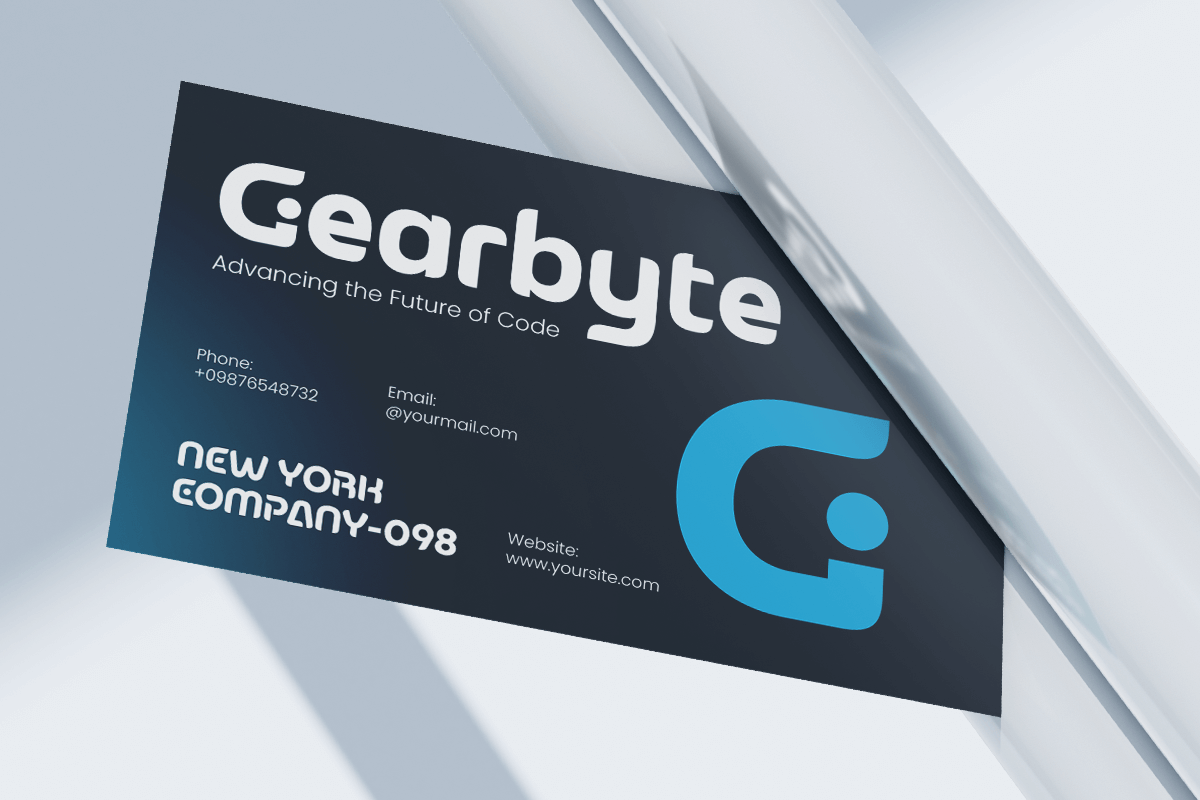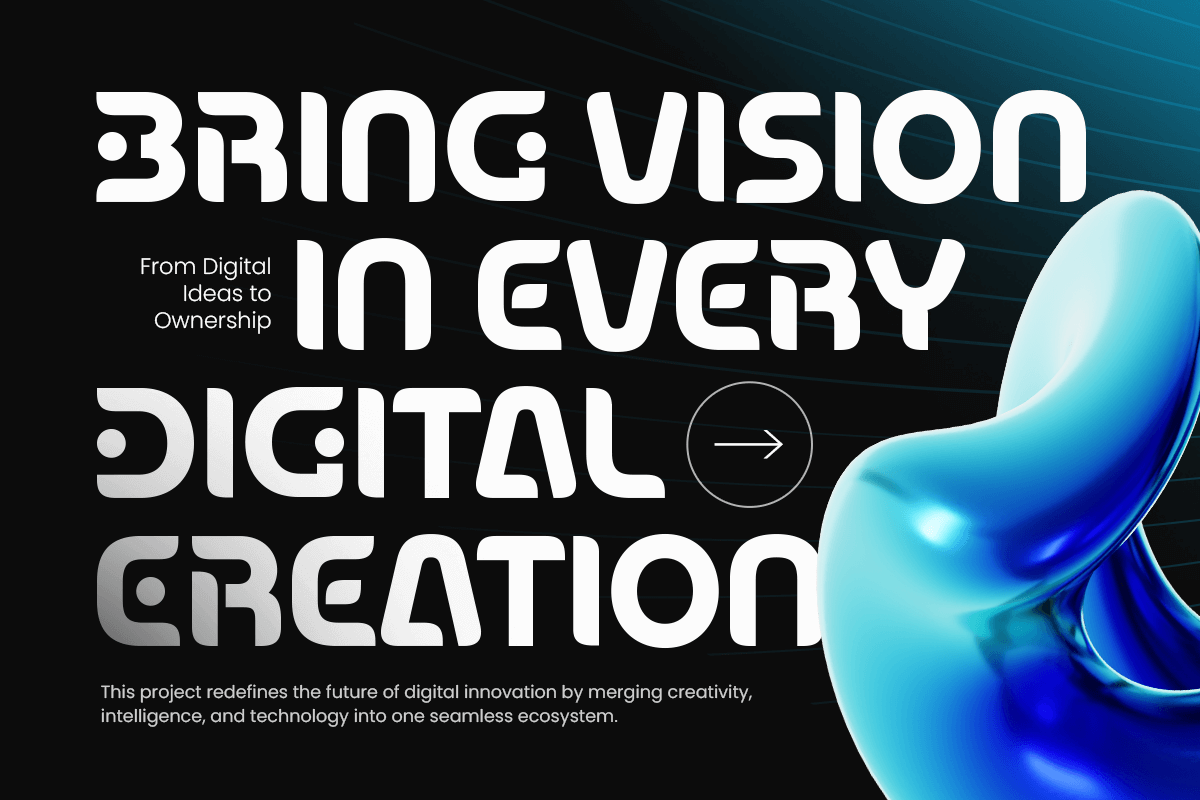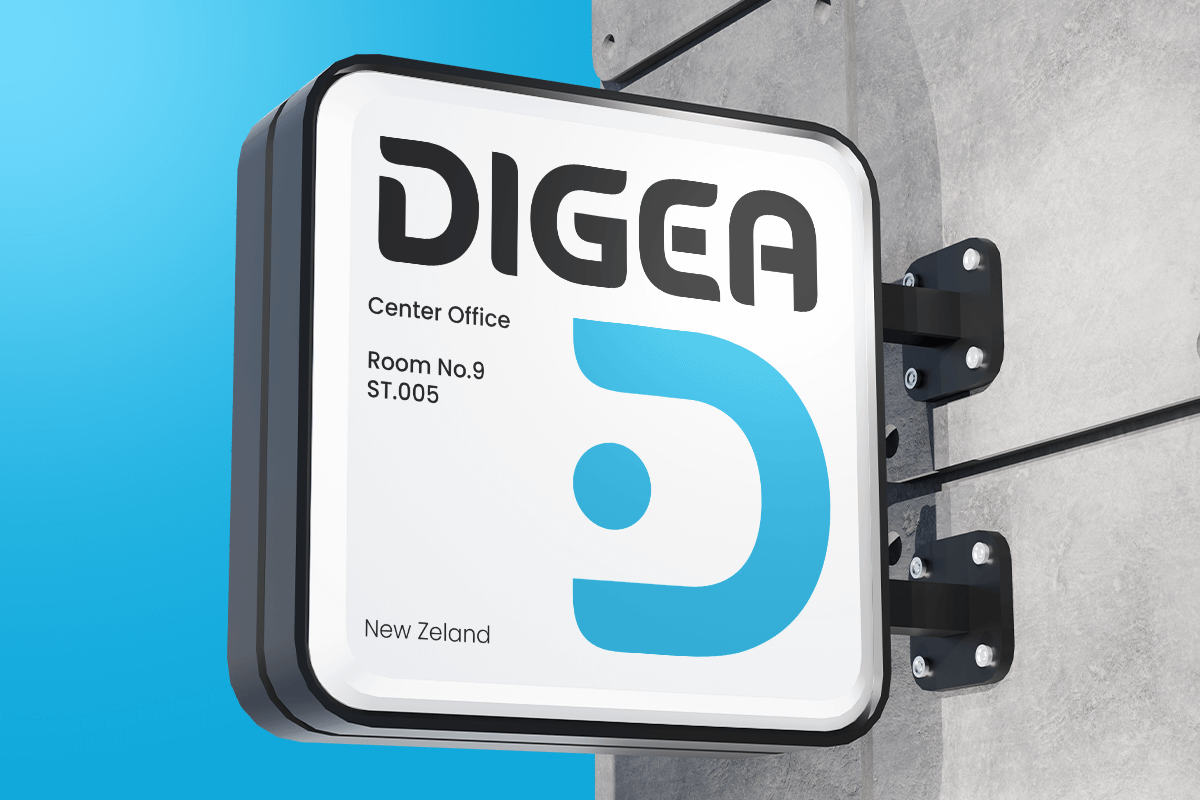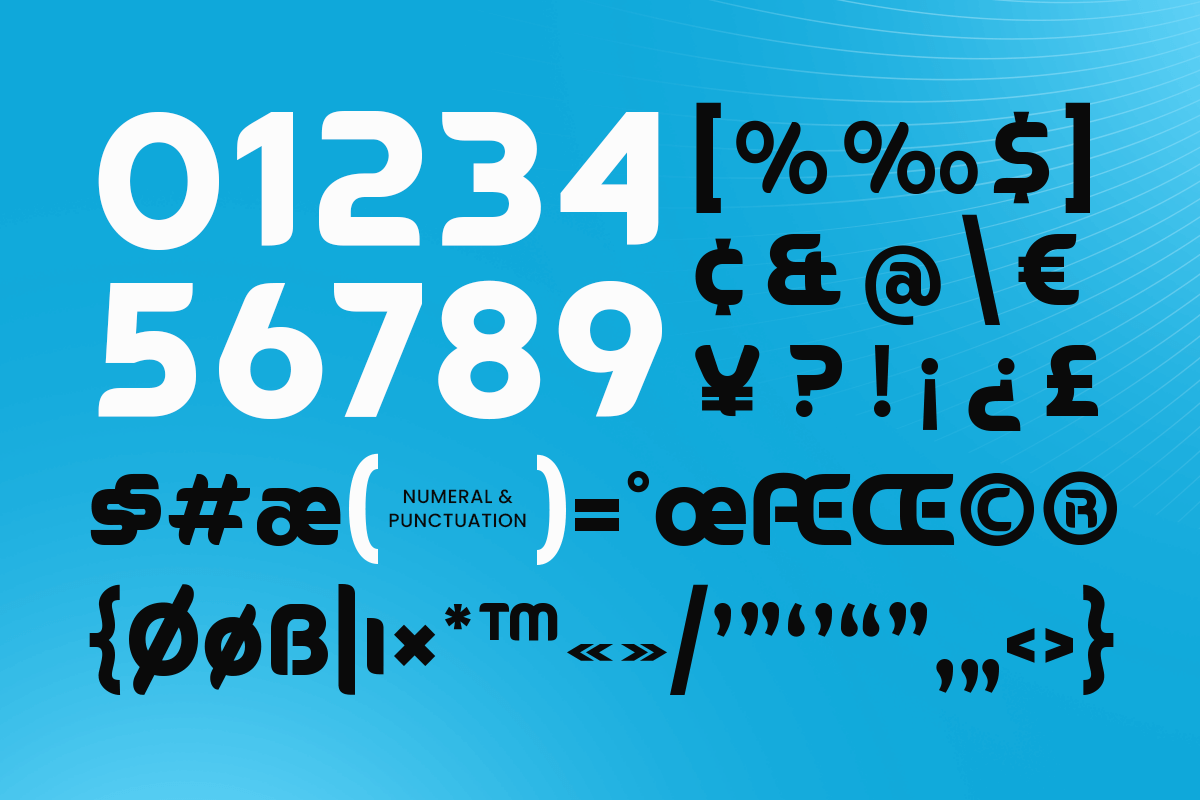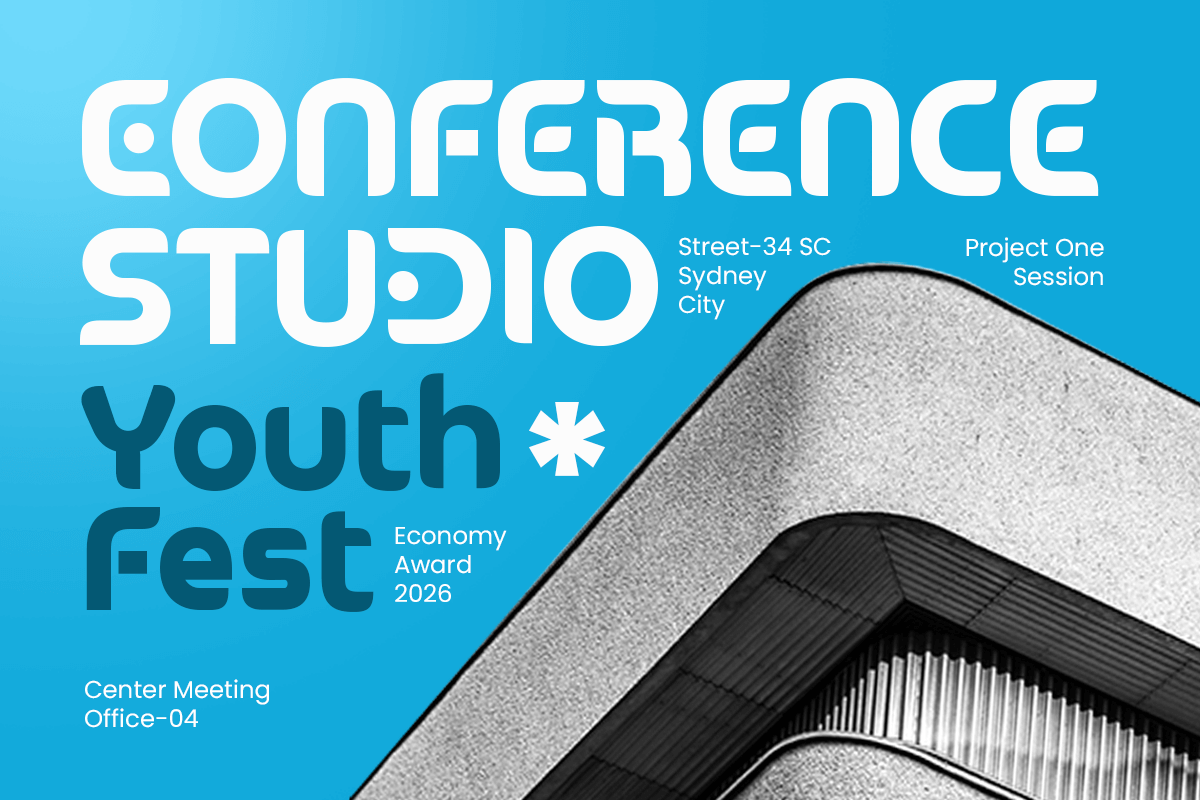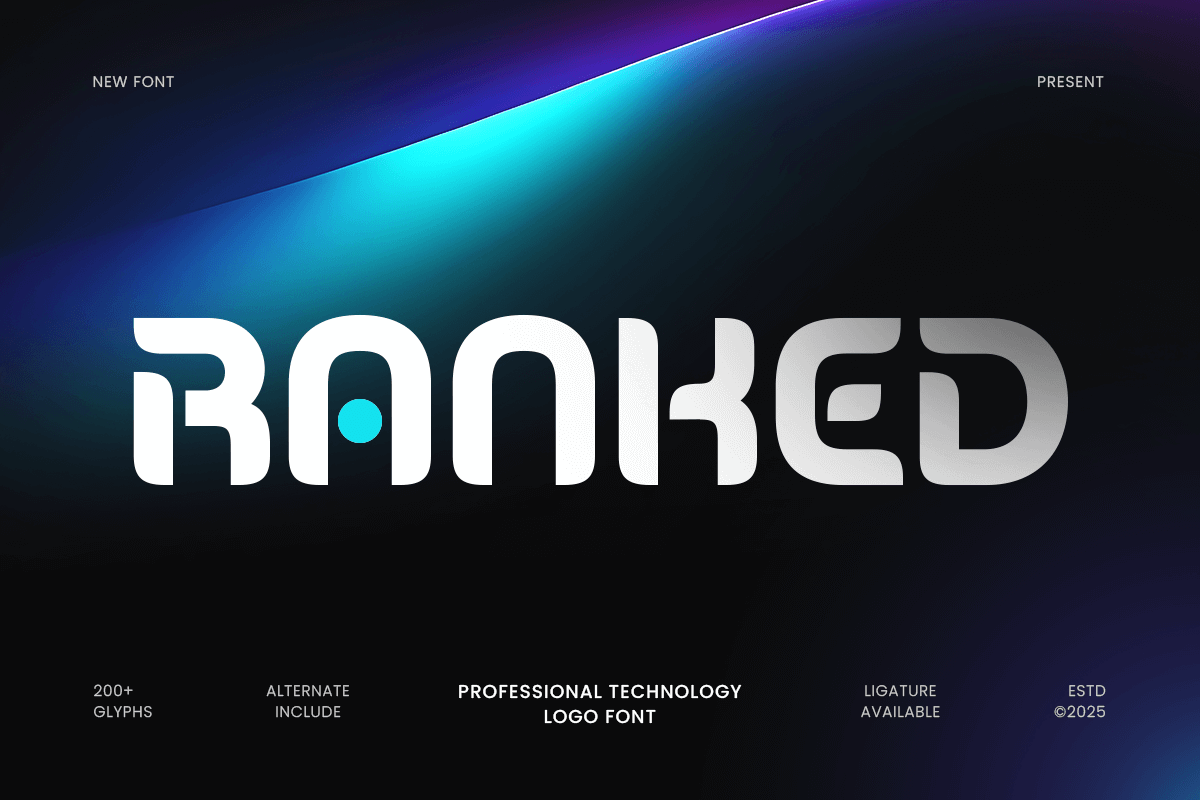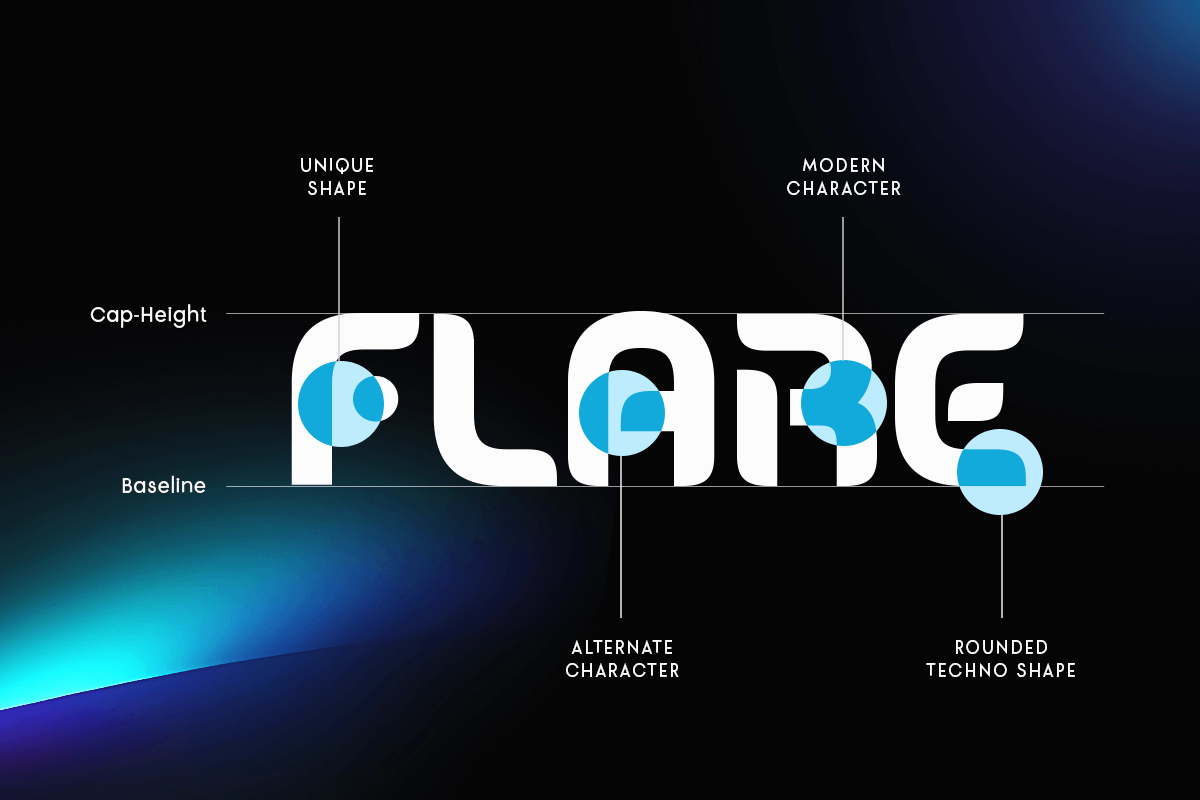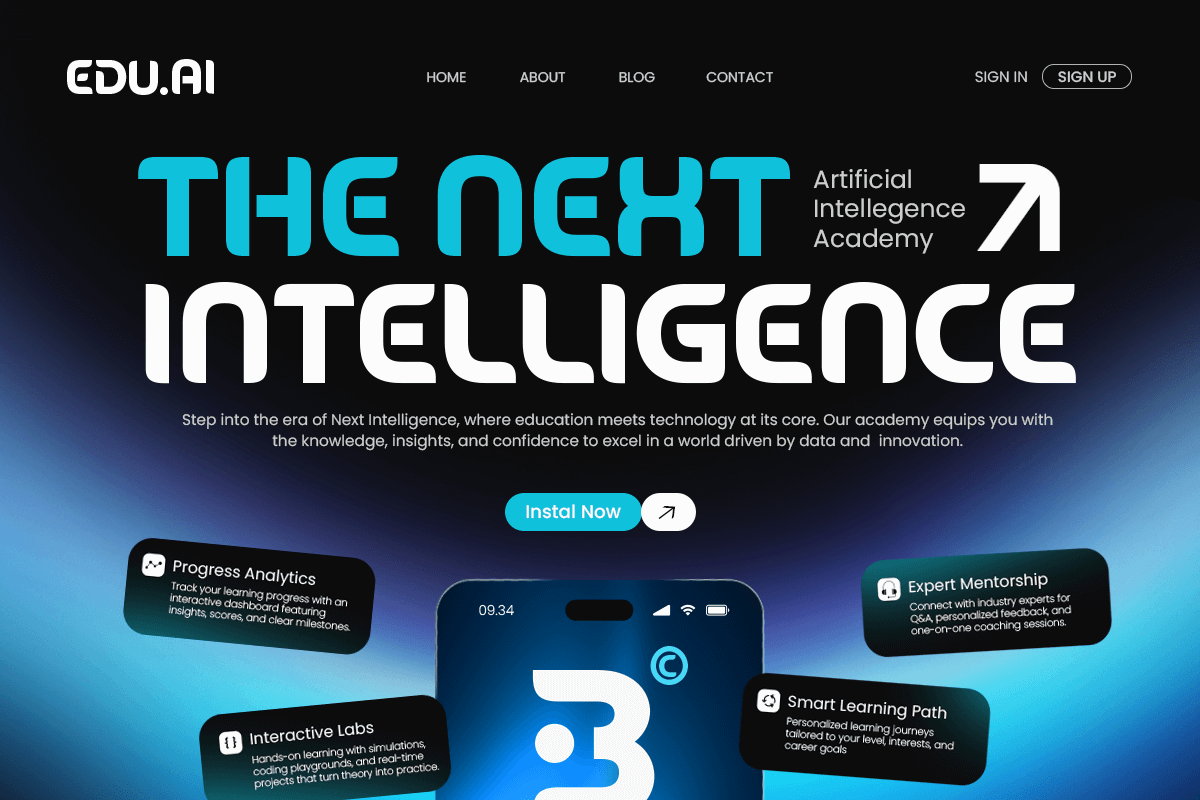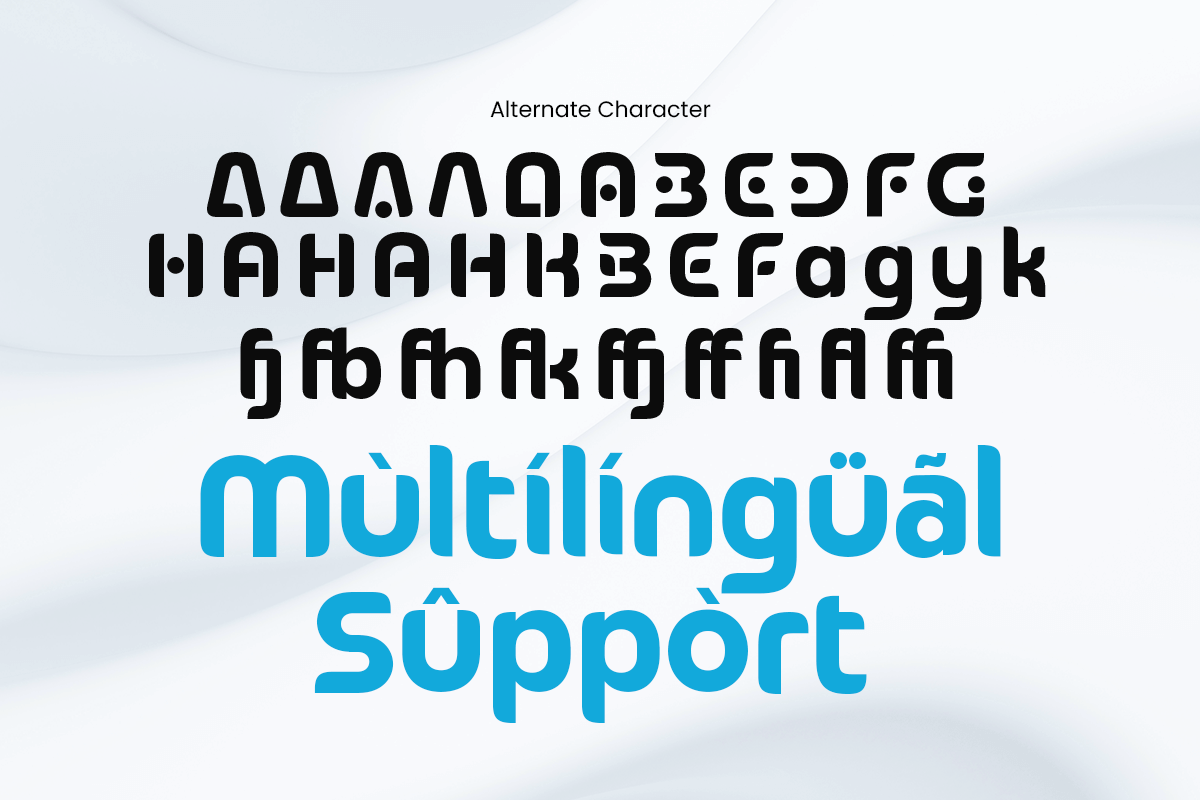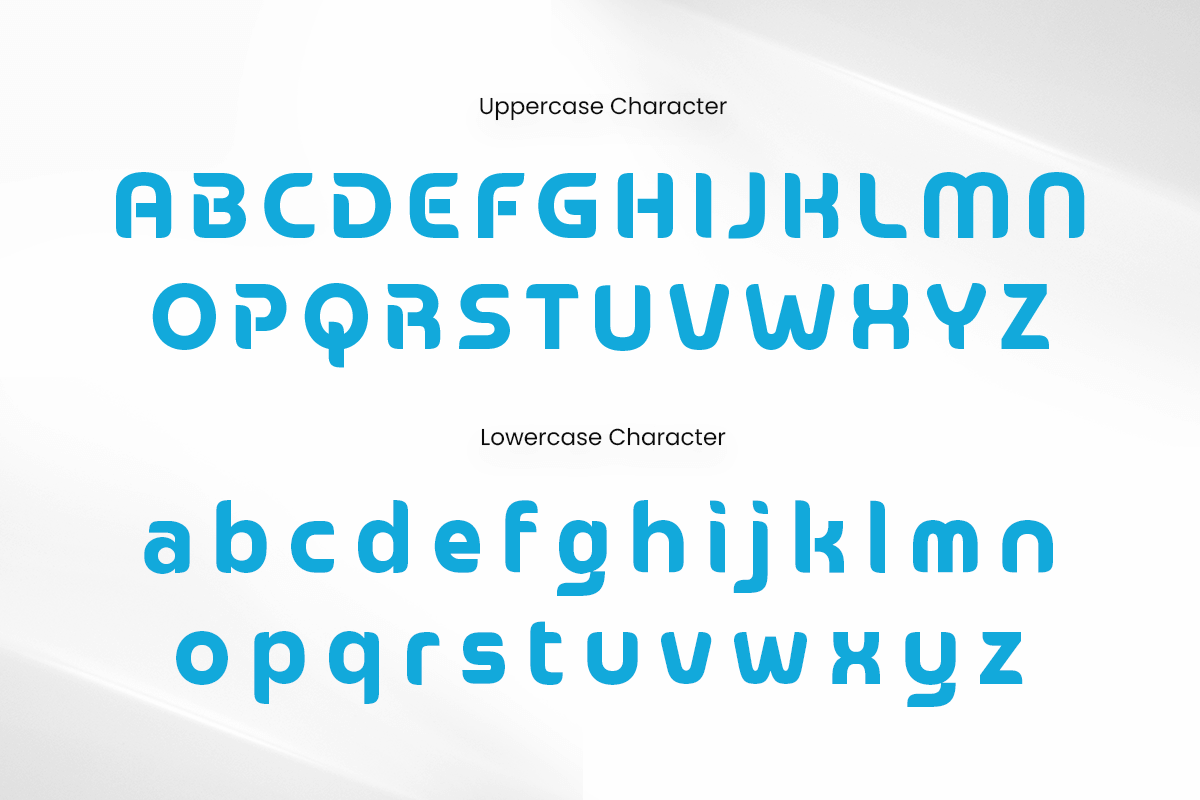
Ranked Professional Technology Font
Ranked – Professional Technology Logo Font
Ranked is a sleek and modern logo font built for professional technology branding. With its futuristic shapes, clean geometry, and balanced proportions, Ranked delivers a bold visual identity that reflects innovation, precision, and modernity.
Perfect for tech startups, digital products, software companies, and modern brands, Ranked combines minimalistic design with a strong, professional feel. Its distinctive letterforms make your logo stand out across screens, packaging, and promotional media — ideal for any project that values clarity and sophistication.
Ranked – Professional Technology Logo Font Features:
\\\* Modern geometric design tailored for tech and digital branding
\\\* Ideal for logos, UI design, packaging, and marketing visuals
\\\* Includes uppercase, lowercase, numerals, and punctuation
\\\* Optimized kerning for professional presentation
\\\* Excellent readability for both print and digital environments
Empower your brand identity with Ranked – the professional technology font made for innovation-driven design.